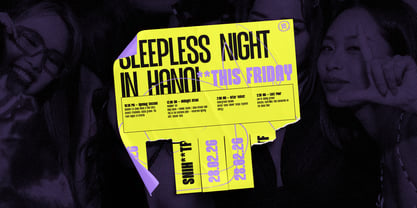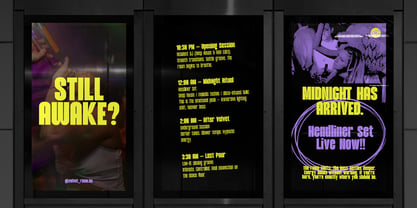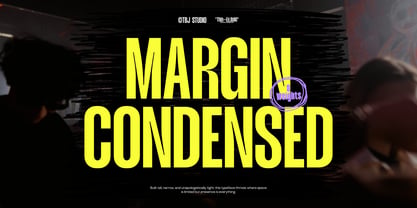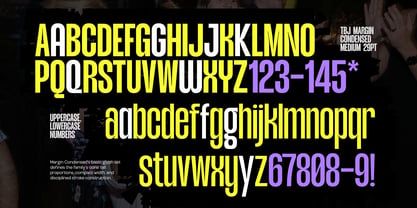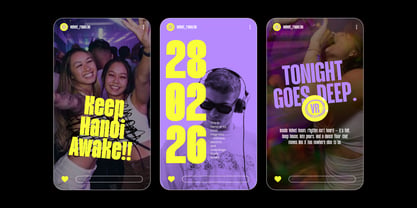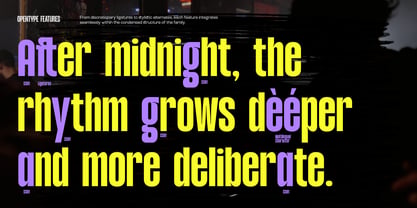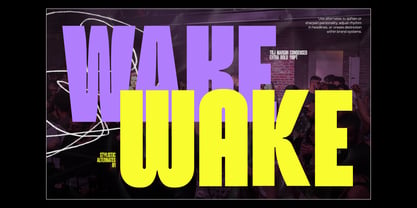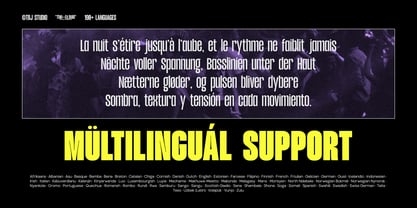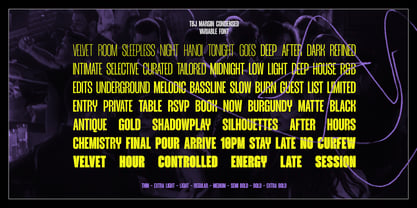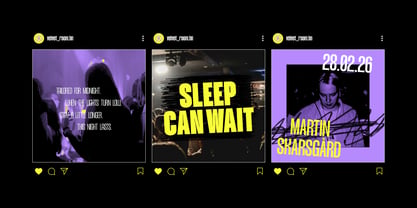
TBJ Margin Condensed
The TBJ Margin Condensed Font Family was designed by Yusilo Oktaprima Ardani and published by Taboja Studio. TBJ Margin Condensed contains 8 styles and family package options. More about this family
TBJ Margin Condensed is a strong bold condensed sans serif typeface designed to deliver maximum impact in minimal horizontal space. Built with tall proportions, tight spacing, and confident stroke weight, it creates a powerful vertical presence that stands out across headlines and branding systems. Engineered with a complete range of 8 weights from Thin to Extra Bold, TBJ Margin Condensed offers structured versatility across modern design needs. Each weight maintains structural consistency while gradually increasing visual strength, allowing designers to move seamlessly from refined narrow compositions to bold, dominant display typography—ideal for layered layouts and strong brand statements. Its condensed form enhances readability in space-limited environments, while its bold character ensures attention across corporate branding, sports visuals, advertising campaigns, magazine covers, posters, editorial layouts, and modern logo design. TBJ Margin Condensed blends contemporary sans serif clarity with strong corporate energy, making it a reliable choice for webfont usage, digital platforms, and high-impact print applications. Designed for designers who need strength, precision, and vertical power in one cohesive family, TBJ Margin Condensed delivers confident typography that performs across modern visual communication.
Taboja Studio is a type foundry based in Indonesia, dedicated to creating unique and contemporary typefaces that convey distinct emotion and expression. Our designs seamlessly blend artistic vision with high quality, resulting in typefaces that embody deep character and creativity. We aim to reflect simplicity while emphasizing uniqueness, offering the ability to customize individual elements through comprehensive OpenType features. Ideal for designers and brands seeking to enhance their visual identity, Taboja Studio stands out for its commitment to innovation and craftsmanship in typography.